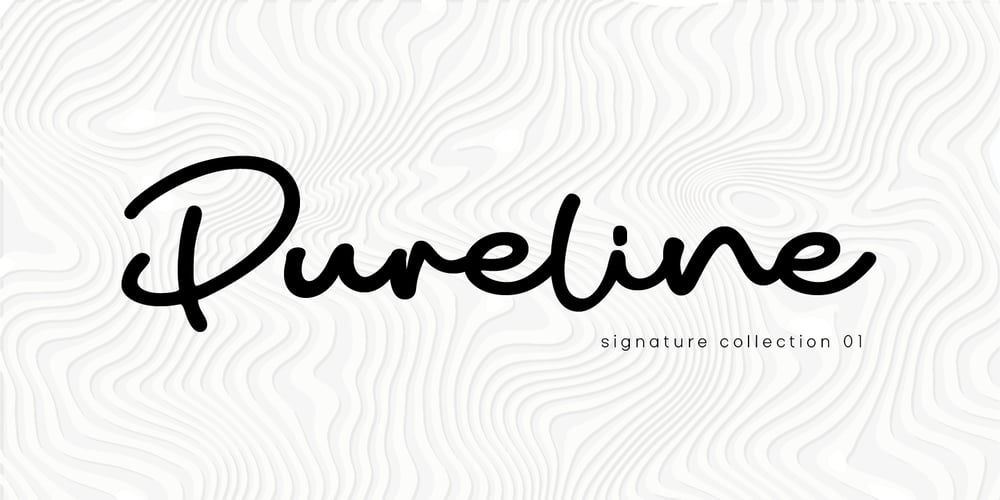
Pureline Font Family was designed by Muhammad Ridha Agusni, Siti Saribanon Nurjannah and published by Cititype. Pureline contains 2 styles and family package options. Pureline is a modern signature font full of life. Get inspired by its unique charm! Available in regular and italic style.Pureline: is perfect for branding projects, logo, social media posts, advertisements, product packaging, product designs, label, photography, watermark, stationery, and any projects that need handwriting taste.